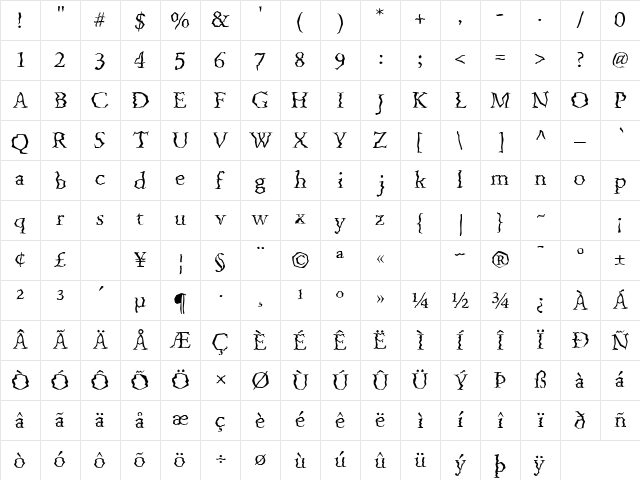
Wobbles Regular
Wobbles Family
Wobbles Regular
Wobbles Regular Font Preview
Wobbles Regular Uppercase Preview
Wobbles Regular Lowercase Preview
Wobbles Regular Numeric Preview
Wobbles Regular Character Map
Complete Wobbles Regular glyph index. Displaying only characters natively supported by Wobbles Regular font.
Design Context for Wobbles
Wobbles is a composed and adaptable typeface that performs quietly and consistently across a wide range of design contexts.